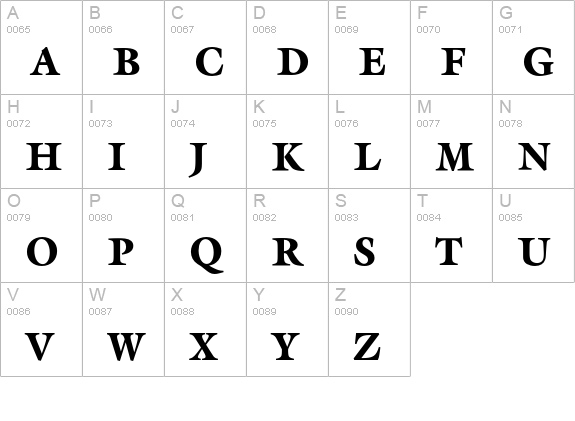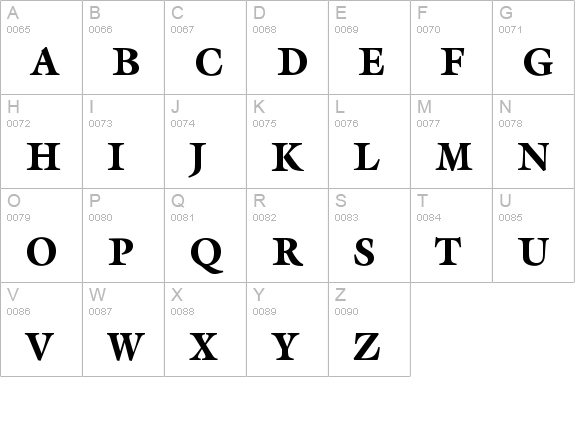
GalliardEF-Black is a maximum-weight, dramatic variant in the GalliardEF typeface family \xE2\x80\x94 well suited to maximum-impact headlines, posters, and packaging.
GalliardEF-Black is a bold and powerful font that exudes elegance and sophistication. Its clean lines and strong curves make it perfect for any design project that requires a touch of professionalism and timelessness. Whether you are creating a logo, designing a website, or crafting a stunning poster, this font will instantly elevate your work to the next level. What sets GalliardEF-Black apart is not just its stunning aesthetics, but also its accessibility. This font is available for free download at FontsMarket.com, making it a valuable asset for any designer on a budget or anyone looking to add a touch of class to their creations without breaking the bank. The versatility of GalliardEF-Black is another reason why it has become a favorite among designers. Its bold and commanding presence makes it perfect for headlines and titles, while its legibility and clarity make it equally suitable for body text. Whether used in print or digital media, this font will ensure that your message is delivered with impact and style. With GalliardEF-Black, you can unleash your creativity and bring your designs to life. Its timeless appeal and freely available download at FontsMarket.com make it an invaluable resource for both professional designers and enthusiasts alike. Don't miss out on the opportunity to add this stunning font to your collection and take your designs to new heights.